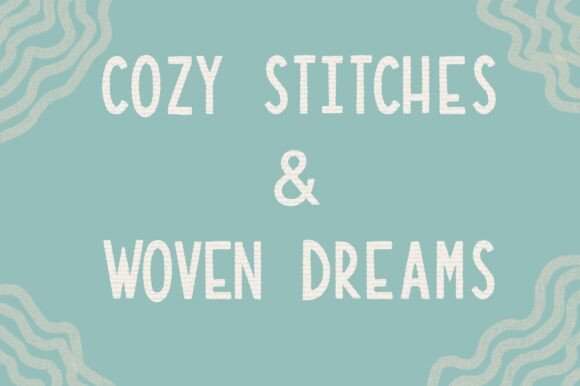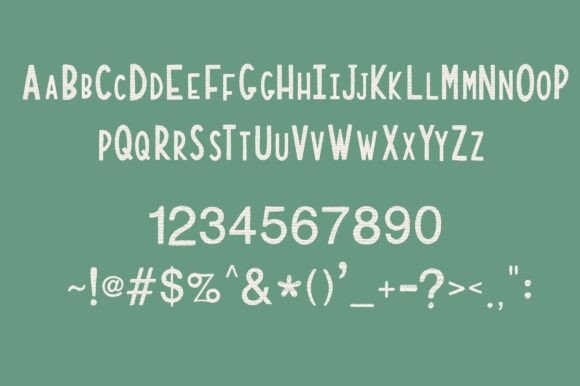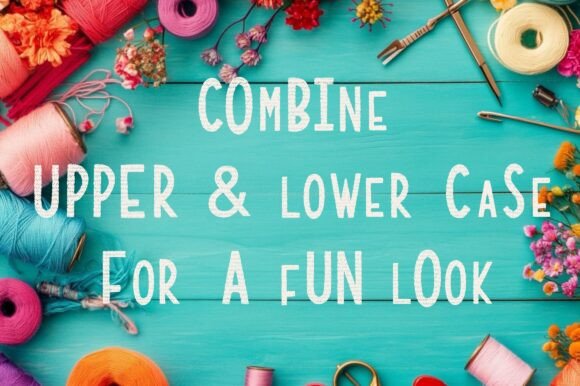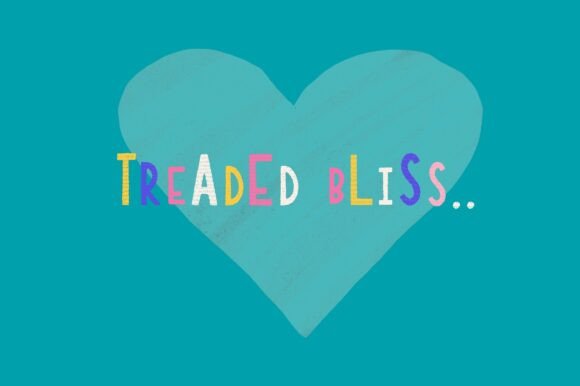
Introducing Hand Woven Hatch: A Unique, Hand-Drawn Font for Creative Projects
Are you tired of using the same old fonts for your creative projects? Look no further than Hand Woven Hatch, a one-of-a-kind, hand-drawn font that adds a touch of warmth and originality to any design. Inspired by the intricate patterns of woven textiles, this font features bold, textured letters with a rustic yet modern appeal that’s perfect for crafting, digital designs, packaging, branding, and more.
The Inspiration Behind Hand Woven Hatch
Hand Woven Hatch is a font that celebrates the beauty of handmade, artisanal craftsmanship. The intricate patterns of woven textiles have long been a source of inspiration for designers and artists, and this font brings that inspiration to life in a unique and creative way. Each letter has been carefully hand-drawn to capture the texture and depth of woven fabrics, resulting in a font that’s both rustic and modern.
Key Features of Hand Woven Hatch
- Hand-drawn with love: Each letter has been carefully crafted by hand, giving the font a unique and personal touch.
- Textured letters: The bold, textured letters feature a detailed hatch-style texture that adds depth and character to any design.
- Uppercase and lowercase letters: The font includes both uppercase and lowercase letters, making it perfect for a wide range of creative projects.
- Numbers and punctuation: In addition to letters, the font also includes numbers and punctuation, making it a versatile choice for designers and crafters.
Hand Woven Hatch is a versatile font that’s perfect for a wide range of creative projects, including:
- Logos and branding: Add a touch of warmth and originality to your brand with this unique font.
- Invitations and stationery: Create beautiful, handmade-style invitations and stationery with Hand Woven Hatch.
- Posters and flyers: Make your posters and flyers stand out with this bold, textured font.
- DIY crafts: Add a personal touch to your DIY crafts, such as sewing or woodworking projects, with this unique font.
- Digital designs: Use Hand Woven Hatch to add a touch of handmade charm to your digital designs, such as social media graphics or blog posts.
- Packaging and labels: Make your packaging and labels stand out with this unique and eye-catching font.
Why Choose Hand Woven Hatch?
With so many fonts to choose from, why choose Hand Woven Hatch? Here are just a few reasons why this font stands out:
- Unique and original: Hand Woven Hatch is a one-of-a-kind font that’s sure to make your designs stand out.
- Handmade feel: The textured, hand-drawn letters give the font a handmade feel that’s perfect for crafty projects.
- Versatile: The font includes uppercase and lowercase letters, numbers, and punctuation, making it perfect for a wide range of creative projects.
- Easily readable: Despite its textured appearance, Hand Woven Hatch is easily readable, making it perfect for both digital and print designs.